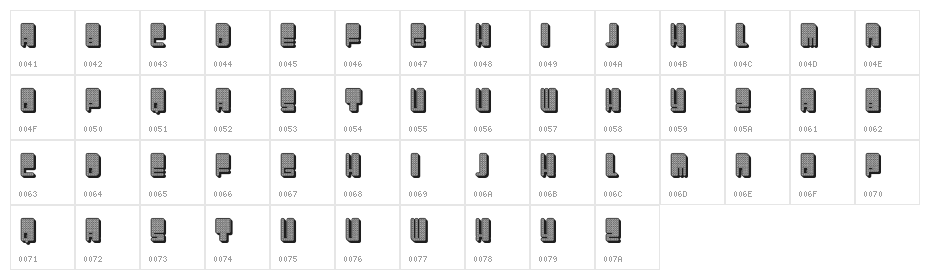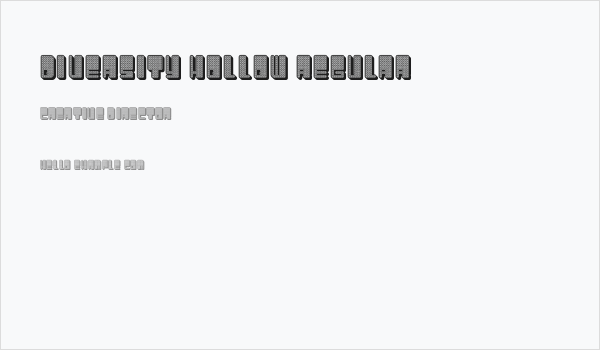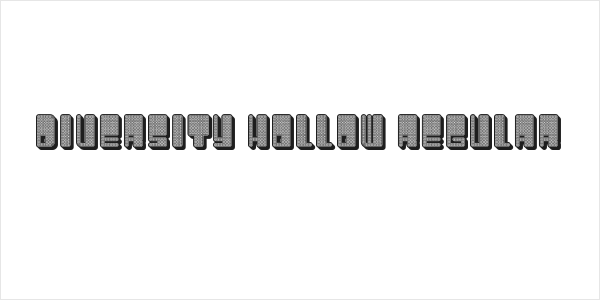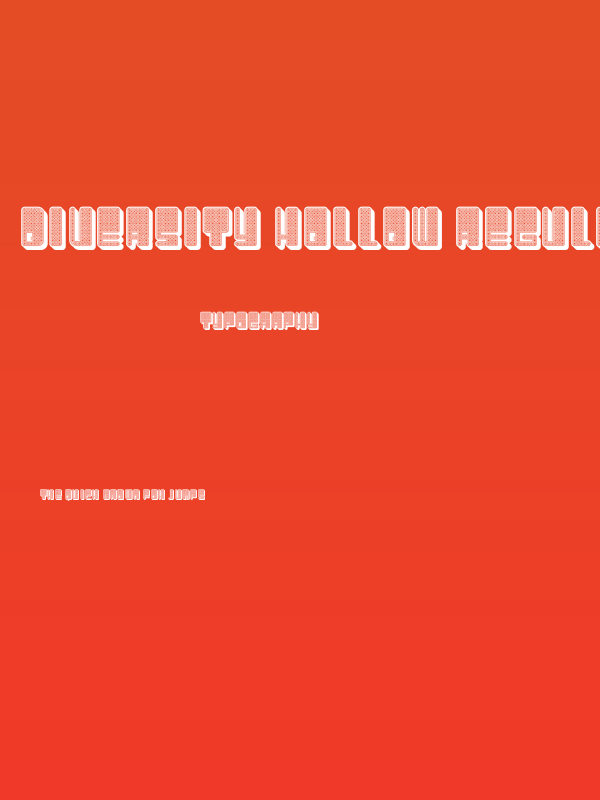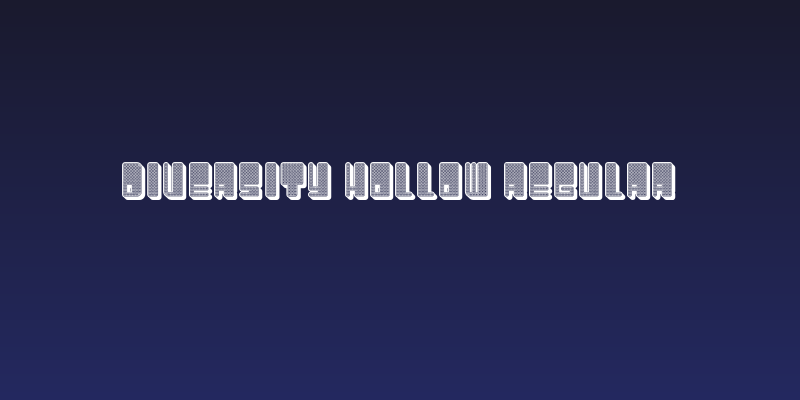
Diversity Hollow Regular Font
Diversity Hollow Regular Description
This font features a bold, hollow design with a distinct three-dimensional effect. Each character is outlined with a thick black border, creating a strong visual impact. The interior of the letters is filled with a pattern of small circles, adding texture and depth. The geometric shapes and blocky structure give it a modern and playful appearance. The font maintains consistent proportions across all characters, ensuring readability while emphasizing its decorative style. This unique combination of hollow interiors and bold outlines makes it ideal for eye-catching designs.
| Proposed Projects | Ideal for posters, logos, and headlines where a striking and modern look is desired. |